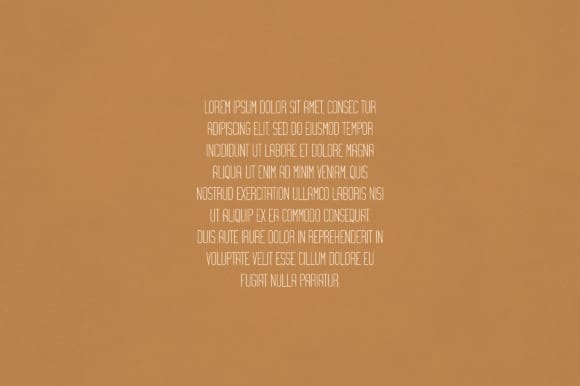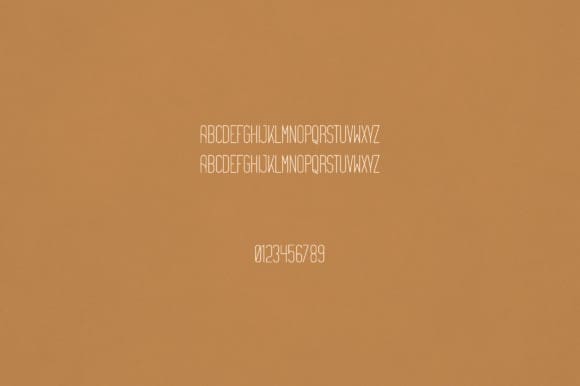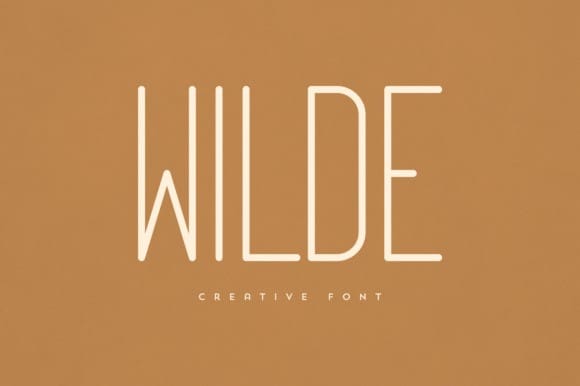
Wilde Font
Wilde Font is an elegant and versatile sans serif font that will make your typography truly unique! It will enchant every logo, branding, headline, or plain text!